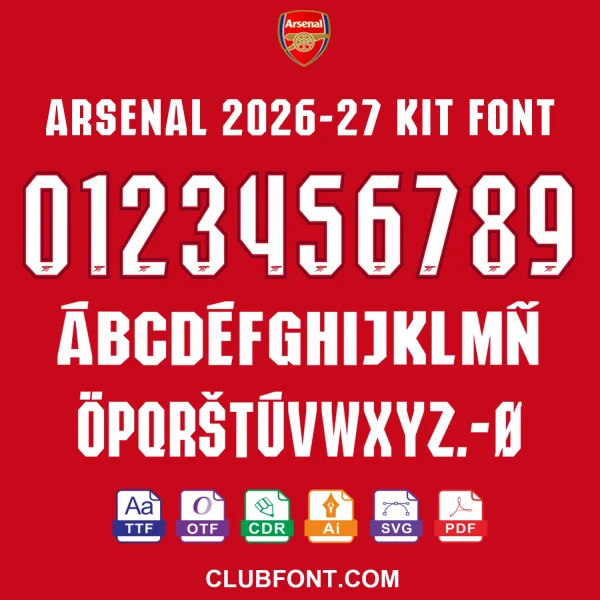
Bring the Emirates atmosphere to your creative projects with the definitive Arsenal 2026-27 Kit Font. As the Gunners prepare for another thrilling Premier League campaign, ensure your custom shirts, banners, and merchandise feature the exact typography seen on the pitch.
Our meticulously crafted font pack replicates the official lettering and numbering used by Arsenal players. Whether you are updating a replica jersey, creating fan banners, or designing sportswear graphics, this bundle provides the professional quality you need. The set includes all letters (A-Z), numbers (0-9), and essential punctuation marks designed specifically for heat-press transfers and vinyl cutting.
Unlike generic fonts, our Arsenal 2026-27 typeface matches the specific kerning, weight, and bevel effects of the official kits. We have analyzed the leaked kit images and official releases to provide the most accurate representation available for the 26/27 season.